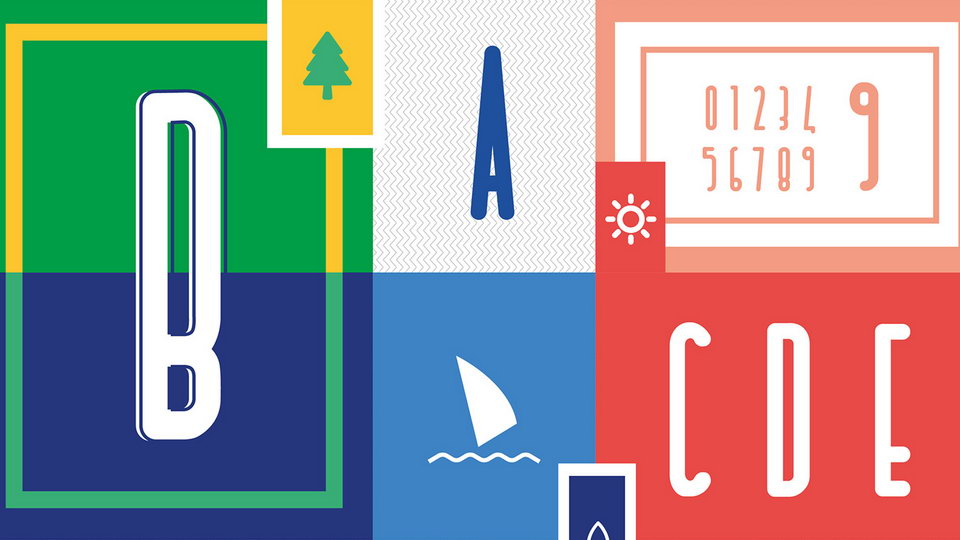
Download Bodrum font, a clean sans serif typeface based on uppercase letters, numbers and some alternative letters. Suitable for headlines and logos. It’s also gresd for posters, banners, social media, prints, badges and more.